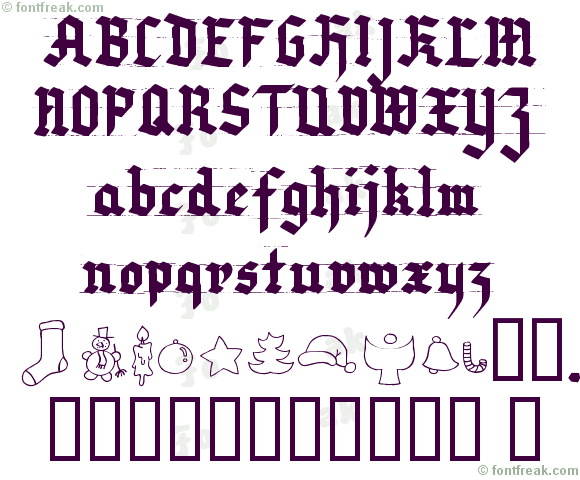
Very Christmess
The Very Christmess font by Jacob Fisher is a decorative typeface that brings a unique flair to any project. Its distinct gothic style features sharp angles and a bold presence, making it a standout choice for creative applications. The font's stroke weight is heavy, lending it an impressive visual impact, while the contrast between thick and thin lines adds an element of sophistication. The spacing between characters is thoughtfully designed to enhance readability, even at larger sizes, while the decorative elements give it a festive, almost whimsical character.
This font is particularly well-suited for a variety of use cases. It can elevate holiday-themed designs, making it ideal for Christmas cards and festive invitations. Additionally, the Very Christmess font would shine on movie posters, especially those targeting a whimsical or fantastical theme. Its bold nature also makes it perfect for restaurant menus that aim to create a memorable dining experience. Graphic designers looking to infuse a touch of holiday spirit into their projects will find this font to be an invaluable resource. Small business owners and content creators seeking to captivate their audience during the holiday season will also appreciate its unique charm.
The target audience for the Very Christmess font includes graphic designers, small business owners, and content creators who wish to add a distinctive touch to their work. The font stands out not only for its visual appeal but also for its versatility across various applications. Its freeware license invites creative freedom, allowing users to incorporate it into their projects without restriction. For those looking for a memorable and engaging typeface, the Very Christmess font free download is an exceptional option that promises to leave a lasting impression.